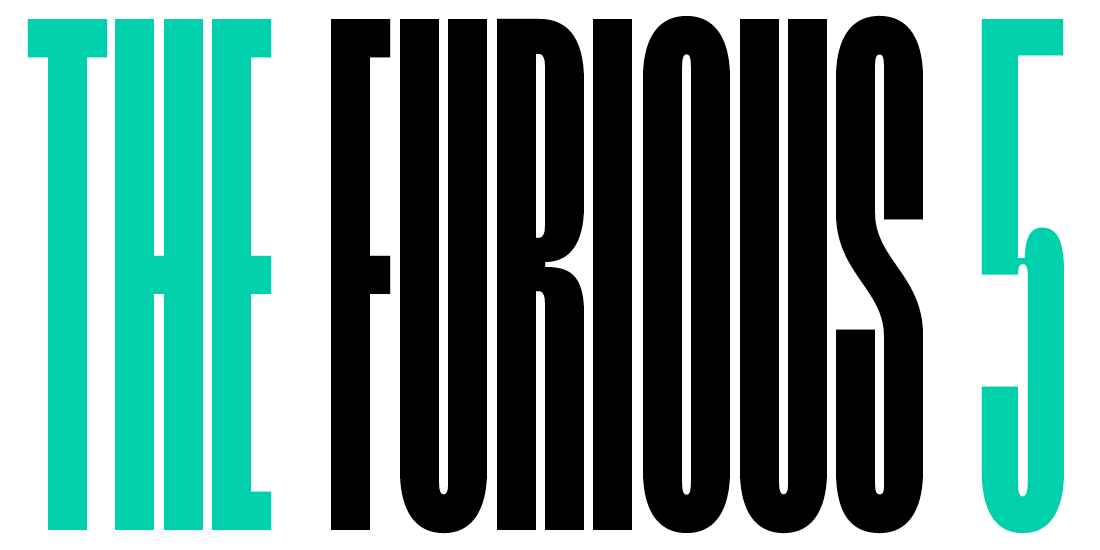
Name: Grandmaster
Designer: Lucas Descroix
Foundry: The Designers Foundry (TDF)
Release Date: February 2018
Back Story Searching for a tall, condensed, superfresh typeface, whose flow combines steady rhythm along with a joyful, spontaneous abandon? Look no further—just say hello to Lucas Descroix’s Grandmaster, hot out of the box from Type Designers Foundry. The family, inspired by typefaces such as Adrian Frutiger’s Antique Press 59, got its start in early 2017 with the Black weight. “I was playing with the idea of similar counter-shapes and spacing, and wanted to push the condensed feeling one step further to the edge of optical illusion,” the designer says. “The starting point for Grandmaster is that in a type system, each word is a different arrangement of predefined shapes. I was trying to find a point where everything would look kind of wild yet very controlled, like freestyle over a regular beat.”
While creating the font, Descroix listened to NYC hip-hop artists such as the Ultramagnetic MCs and Afrika Bambaataa and realized that one cut of Grandmaster had to function as a system; he wanted a family where the weight would vary while the width would always stay the same, just as flows and melodies in a song can change, but the beat and rhythm don’t. Much like how a skilled MC can fit an impressive amount of words into one short measure, the condensed letterforms of Grandmaster press and squeeze a maximal amount of letters into a very reduced space.
“I was trying to find a point where everything would look kind of wild yet very controlled, like freestyle over a regular beat.”
Why’s it called Grandmaster? “First, I wanted the name to be long, so when set in all-caps, the complex rhythm of the typeface would become obvious,” Descroix says. “Second, the hip-hop reference had to be there. There are also some hidden jokes: the elongated counter-shapes being the ‘White Lines’ from Grandmaster Melle Mel’s 1983 classic song, but also the fact that “grand” simply means “tall” in French. And, last but not least, each style of the family becomes like a new DJ name—Grandmaster Flash and Grandmaster Light; Grandmaster Jay and Grandmaster Bold.”
What are its distinguishing characteristics? Grandmaster is extremely condensed and the width of each letter stays the same across the width. Some of the more complex letters, like the capital M and N deal with this narrow space by folding rigidly in on themselves in a mechanical way, while others, such as the capital G and Q, feel more organic. Diacritics are included in the letter’s height, allowing for a tightly constructed layout. The family comes with several alternates, including a funky lowercase g, and the stylistic sets contain goodies such as very thin punctuation marks, perfect for setting big headlines. Grandmaster has a distinctive edgy manicule (other names for the symbol include printer’s fist and pointing hand), directly referencing “old-school” hip-hop flyers.
What should I use it for? “I really enjoy the idea that my typefaces, including Grandmaster, are not workhorses that allow you to make everything and anything, but already carry strong visual choices,” says Descroix. “Grandmaster is obviously a display type, crafted to work at large sizes and fit to a constructed grid, but to be honest I’d love to see it used for longer texts—it might hurt your eyes a bit but also really show off the type’s potential for abstraction. All in all, probably not a good idea for airport signage or a pocket book collection.”
What other typefaces do you like to pair it with? Descroix recommends a very thin geometric, such as TDF’s Averta in order to play with blocs of text and vertical spaces. Or, perhaps, something just as strange as Grandmaster itself: Yoann Minet’s Clifton or Descroix’s own Nostra Mono.